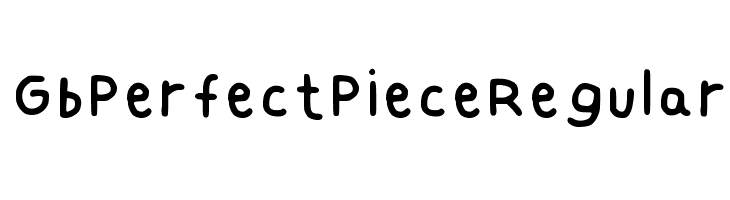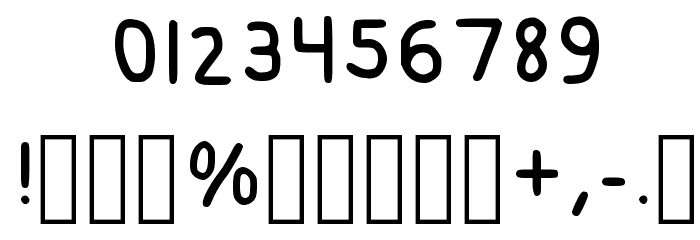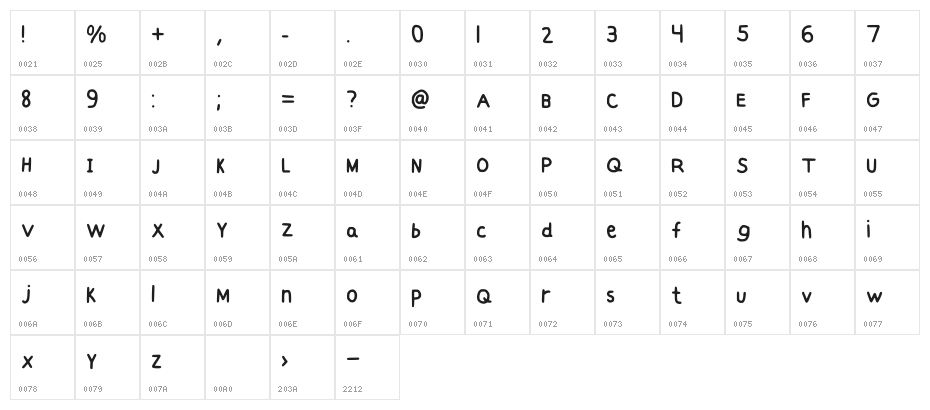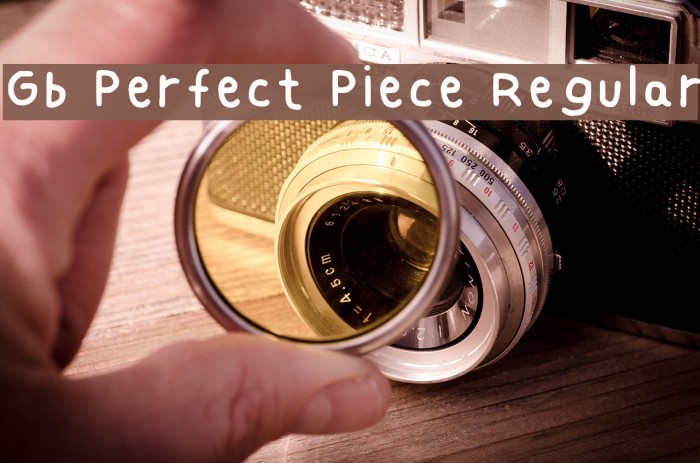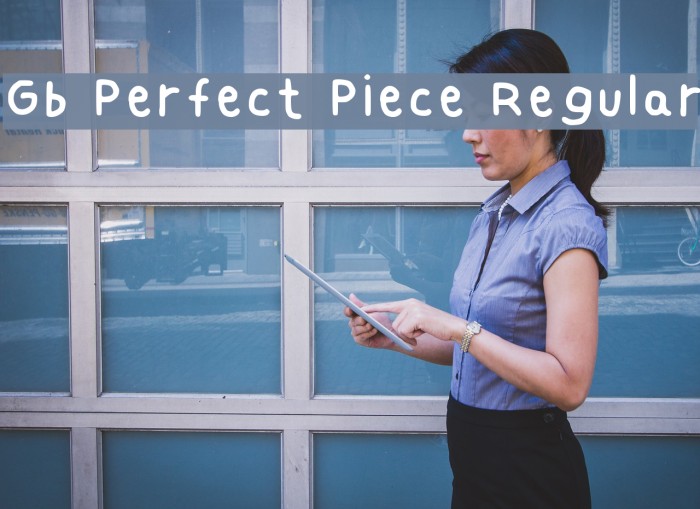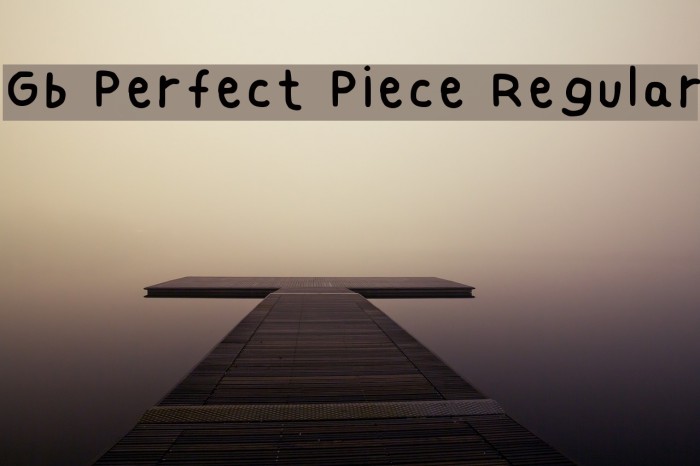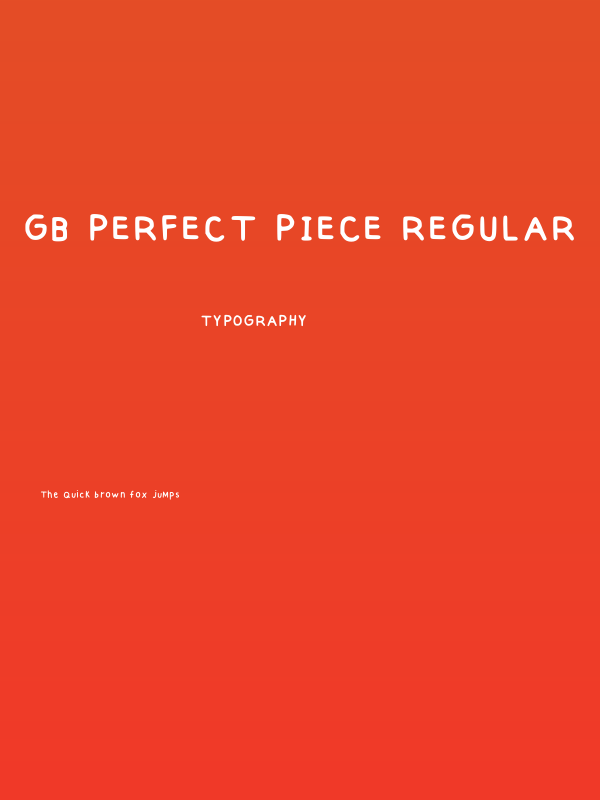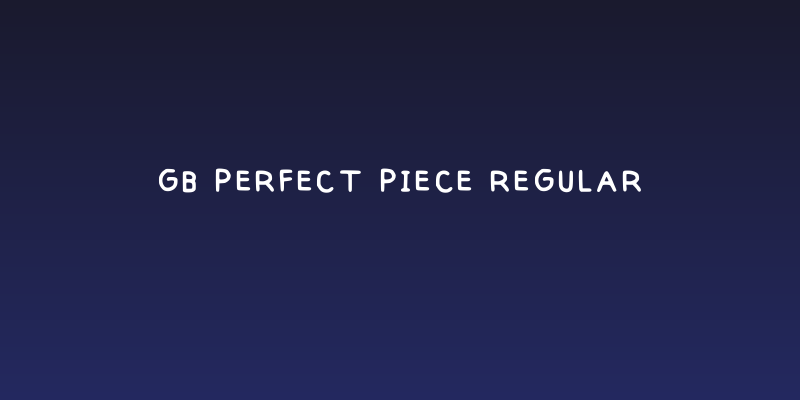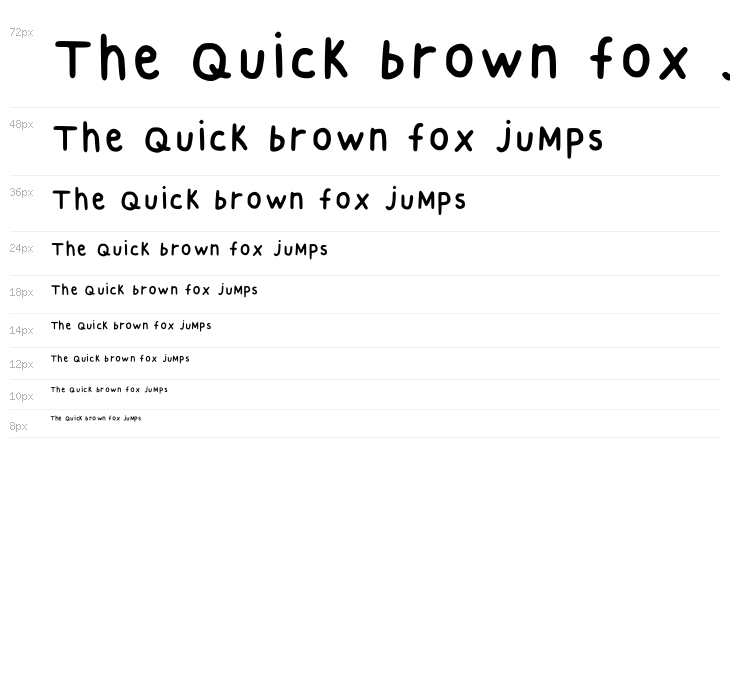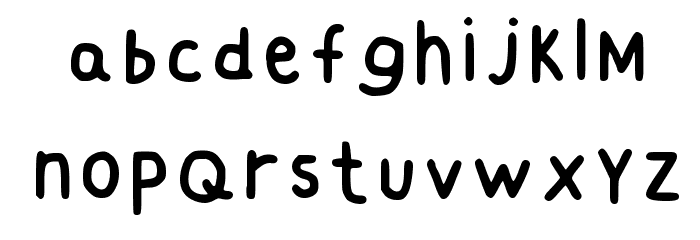
Gb Perfect Piece Regular Font
Gb Perfect Piece Regular Description
This font features a playful and casual style with rounded edges and a handwritten feel. The characters are slightly irregular, giving it a friendly and approachable appearance. The uppercase and lowercase letters maintain a consistent flow, while the numerals and special characters complement the overall design. Its informal nature makes it suitable for projects that require a personal touch or a relaxed vibe. The font's simplicity and readability ensure it can be used effectively in various contexts, from digital to print media.
| Use Case | Headlines, Informal text, Branding |
| Proposed Projects | Ideal for greeting cards, children's books, casual branding, and social media graphics. |